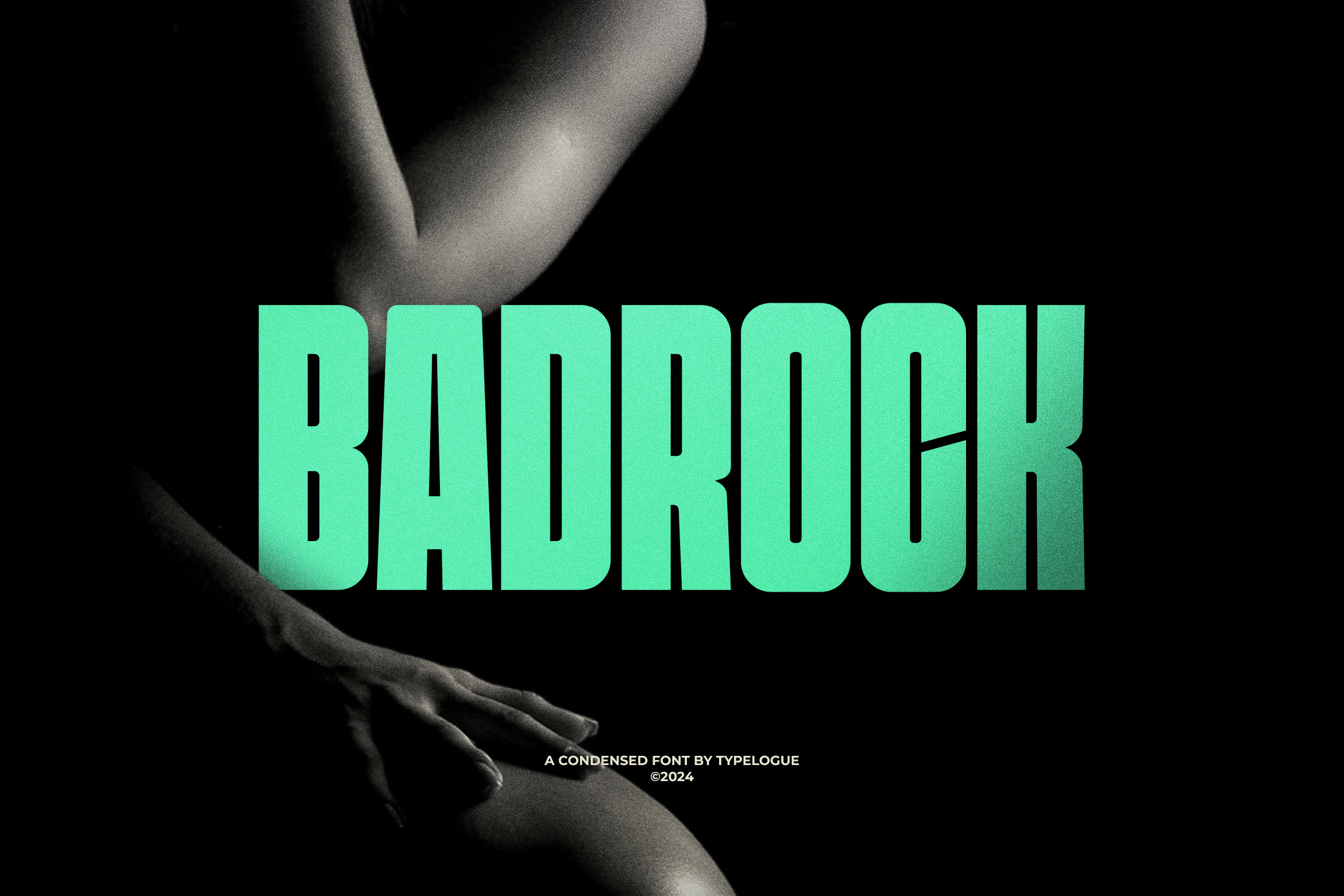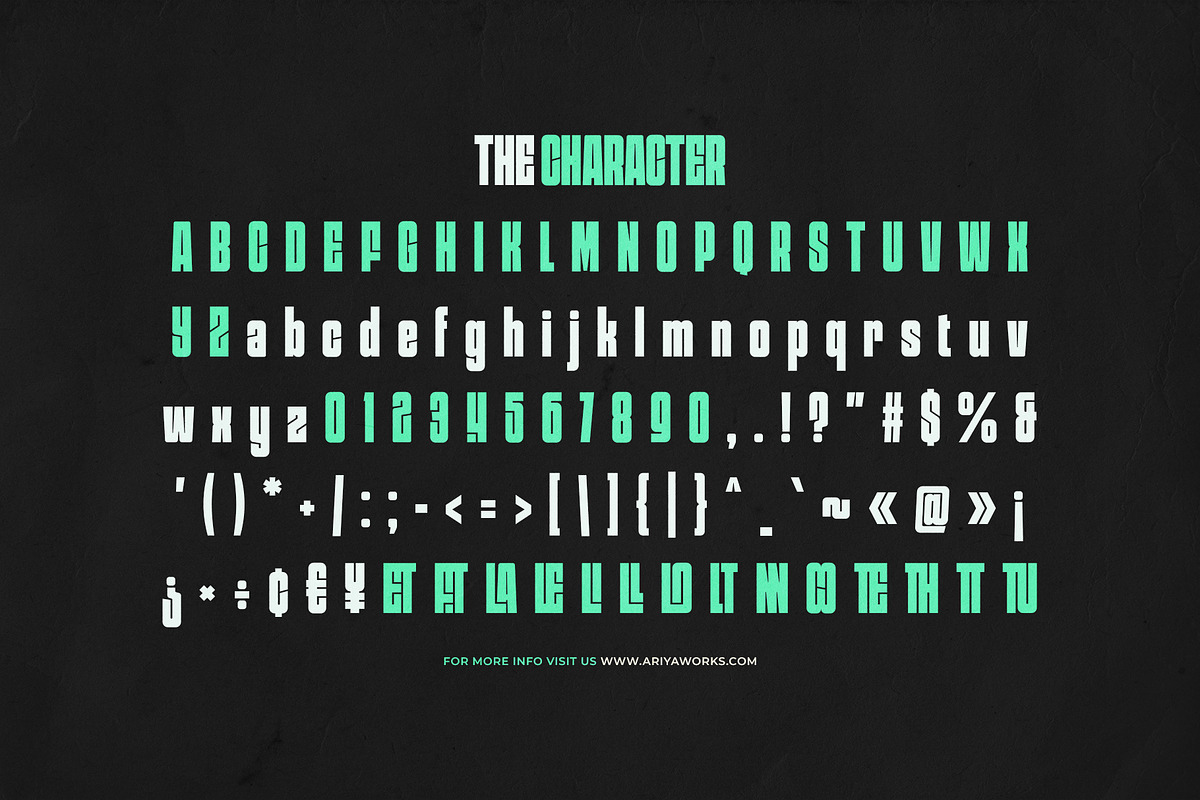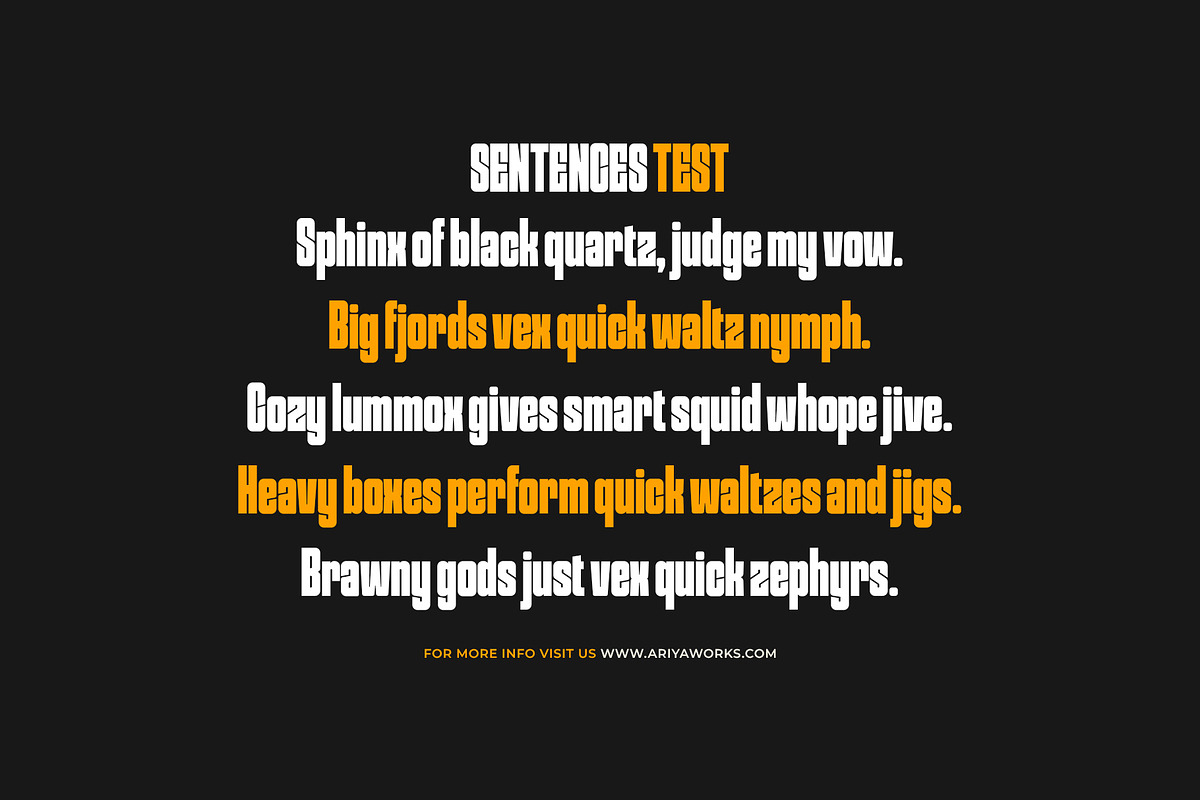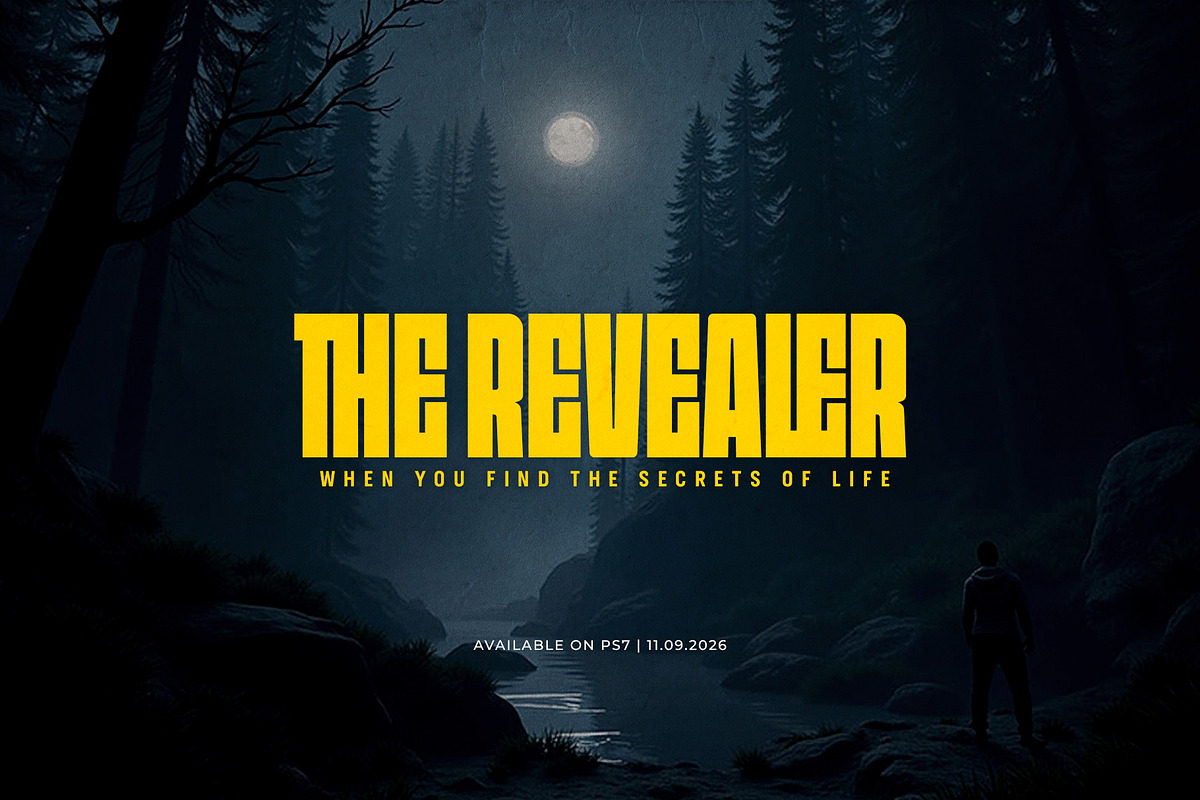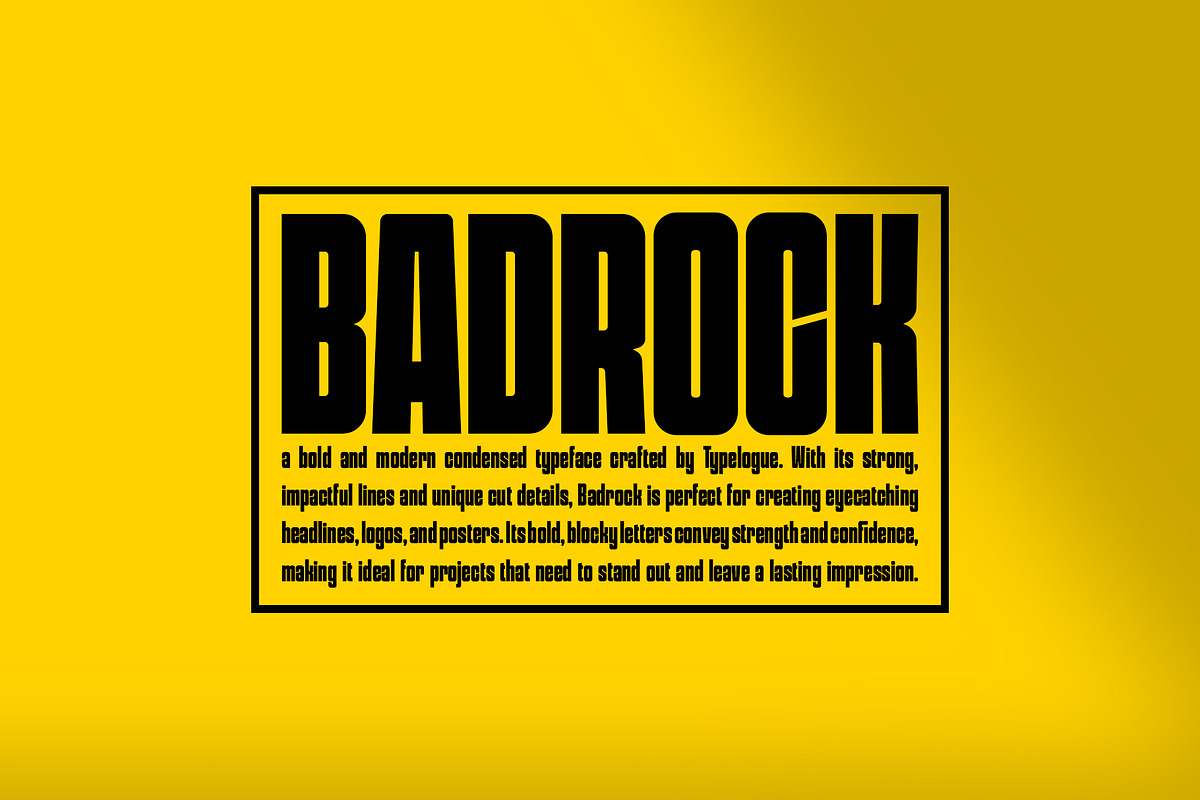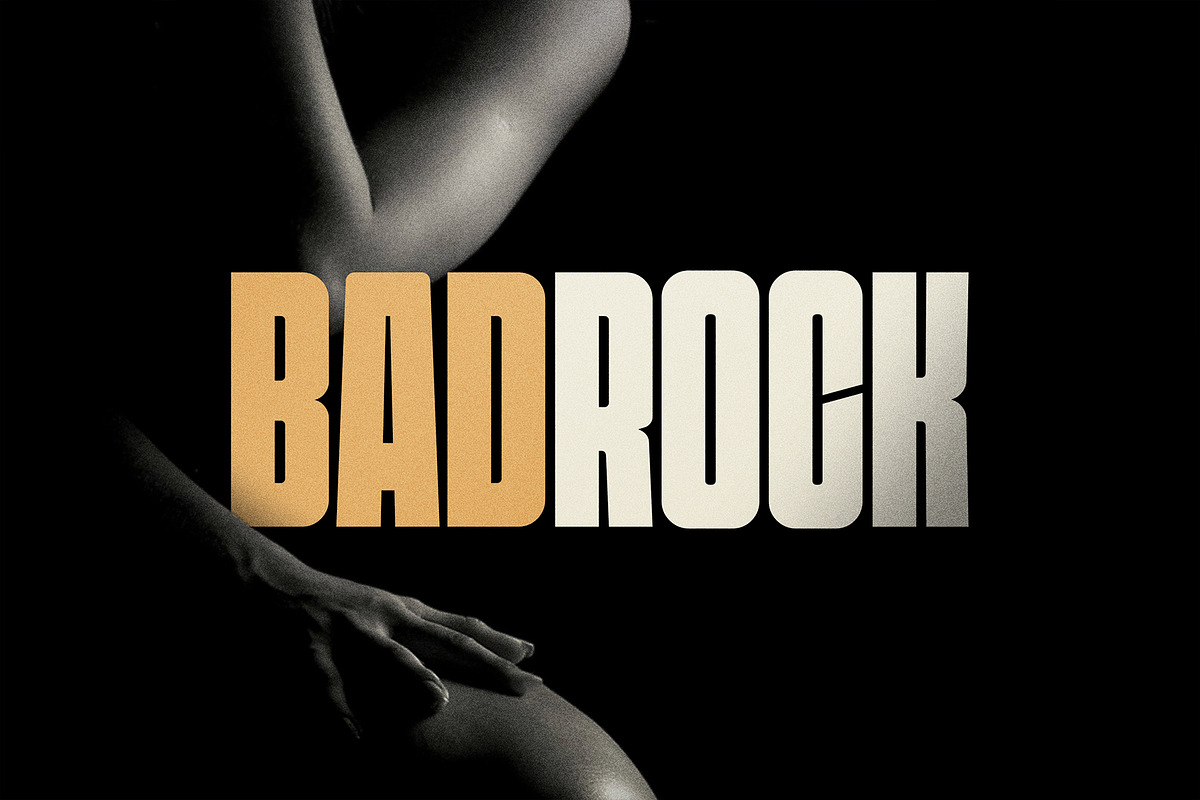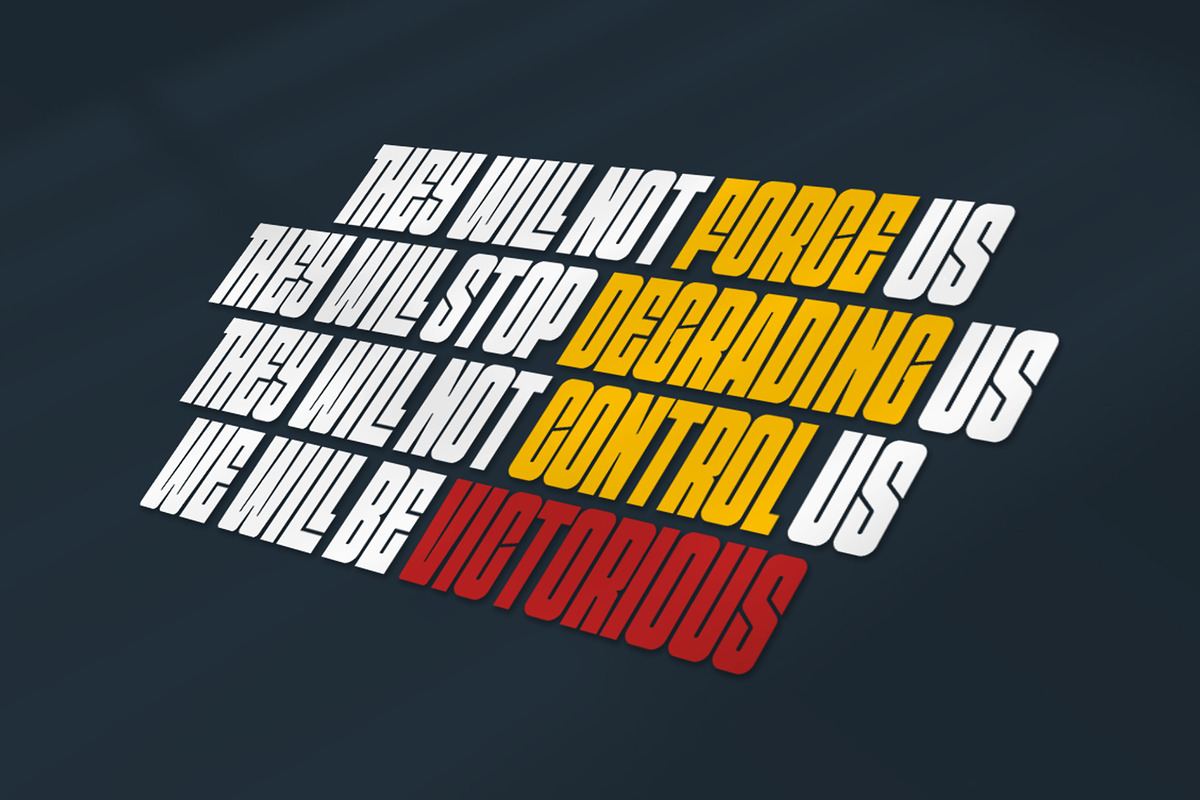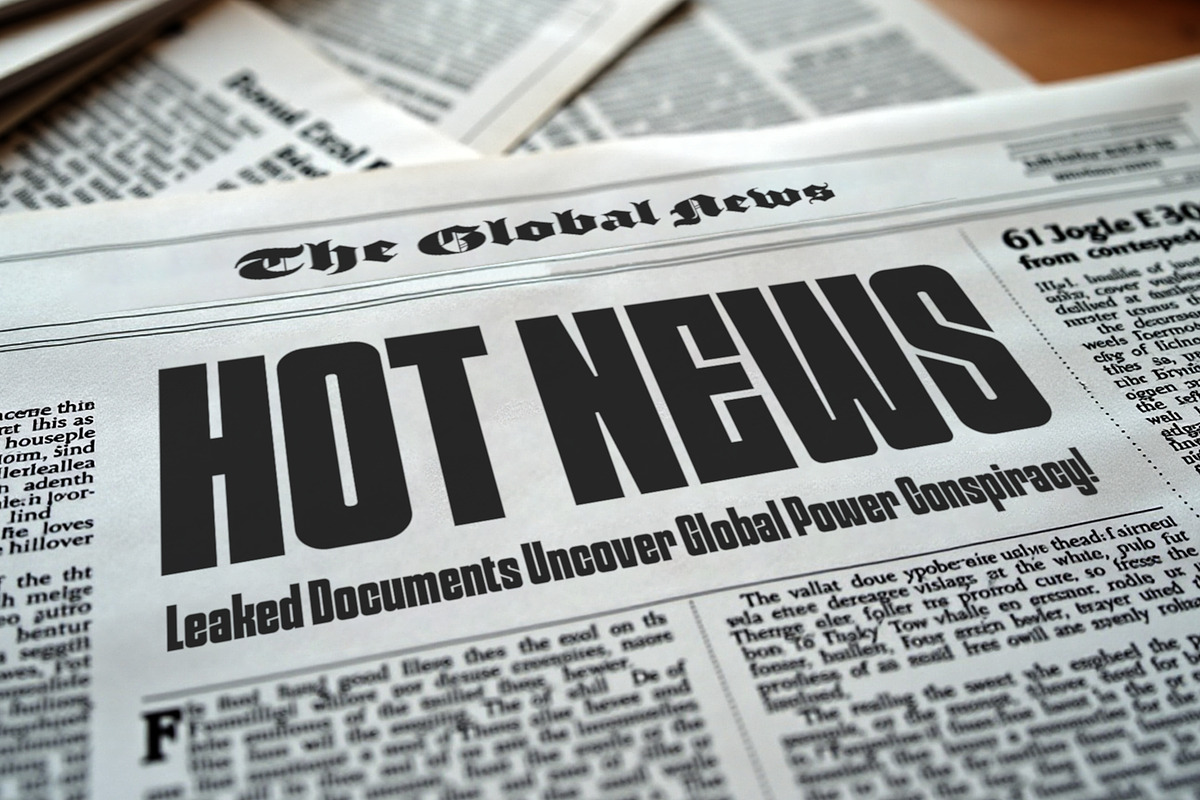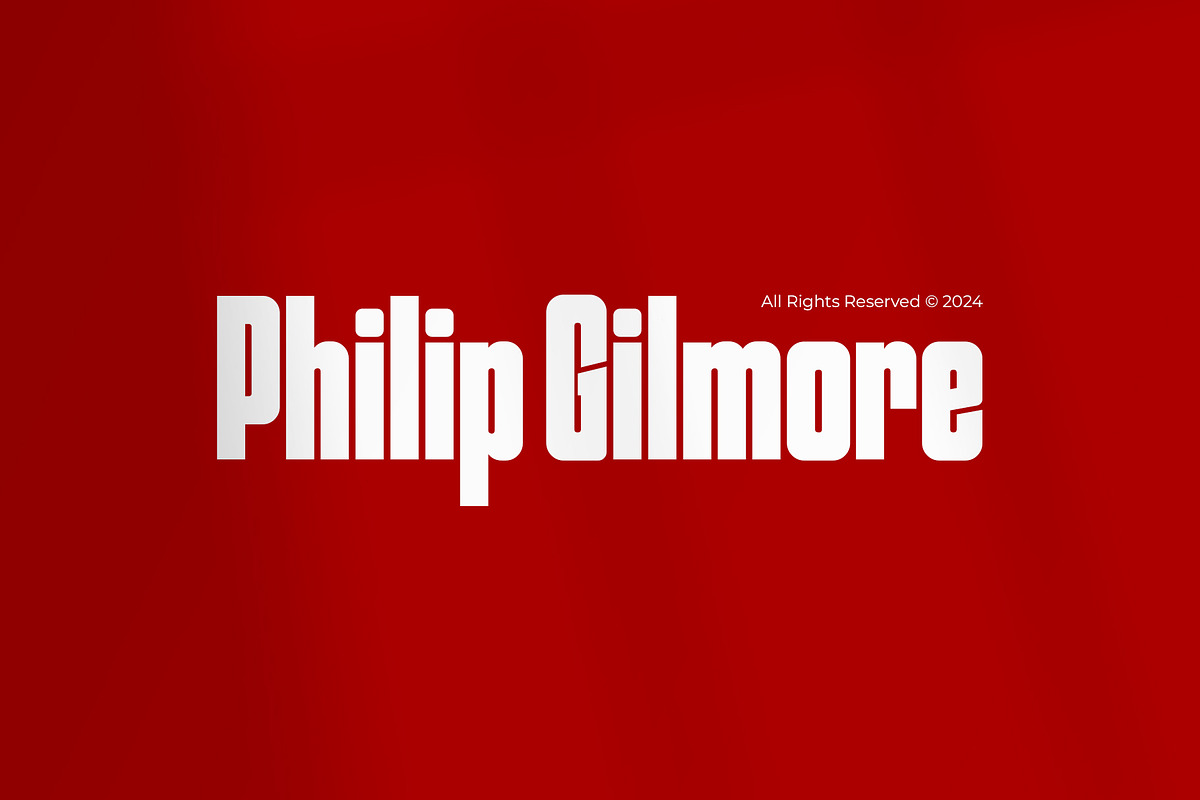
Badrock | Condensed Display Font
Introducing Badrock, a bold and modern condensed typeface. With its strong, impactful lines and unique cut details, Badrock is perfect for creating eye-catching headlines, logos, and posters. Its bold, blocky letters convey strength and confidence, making it ideal for projects that need to stand out and leave a lasting impression. Whether you're designing for advertising, fashion, or creative branding, Badrock’s robust, condensed style provides a versatile solution for enhancing visual impact.